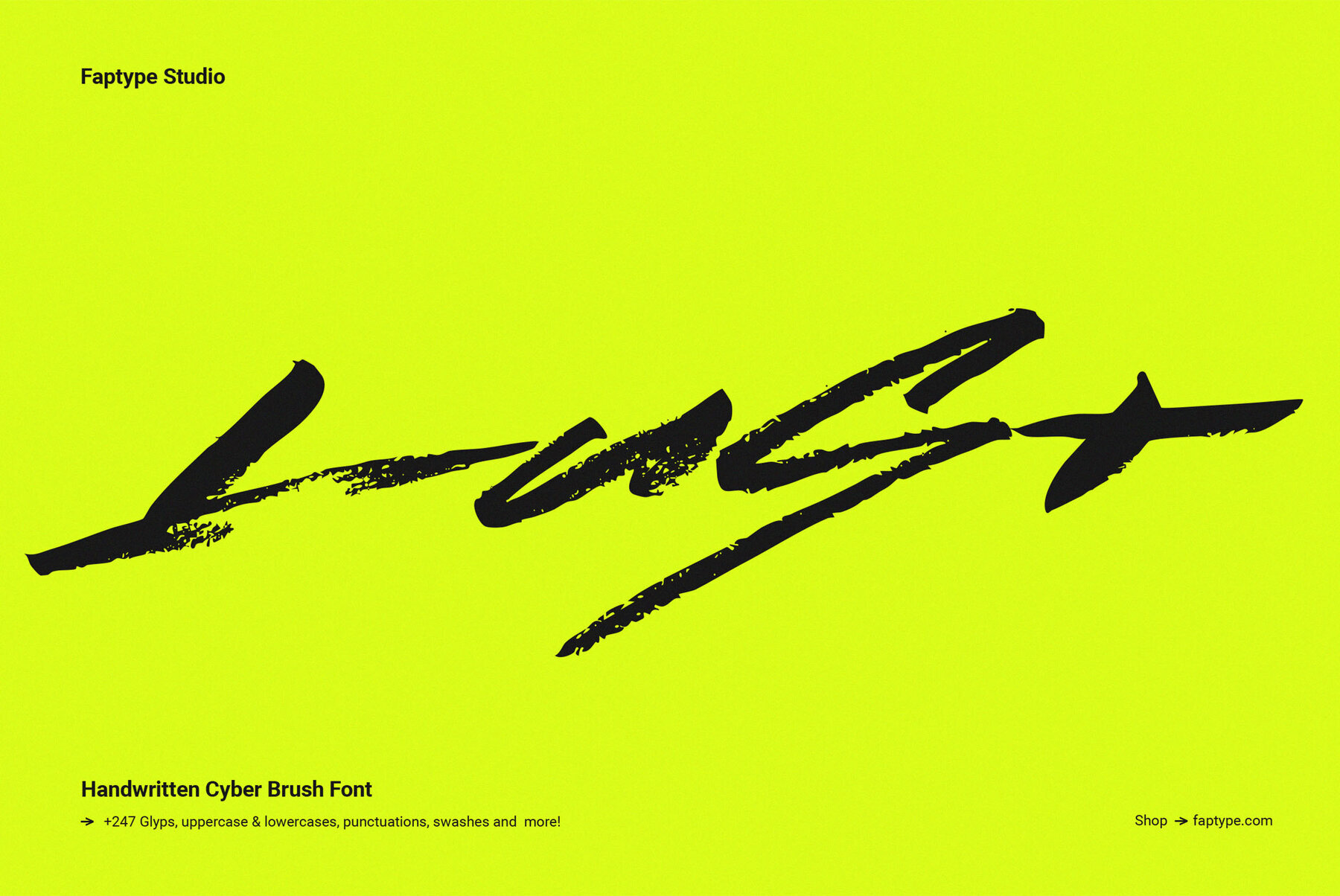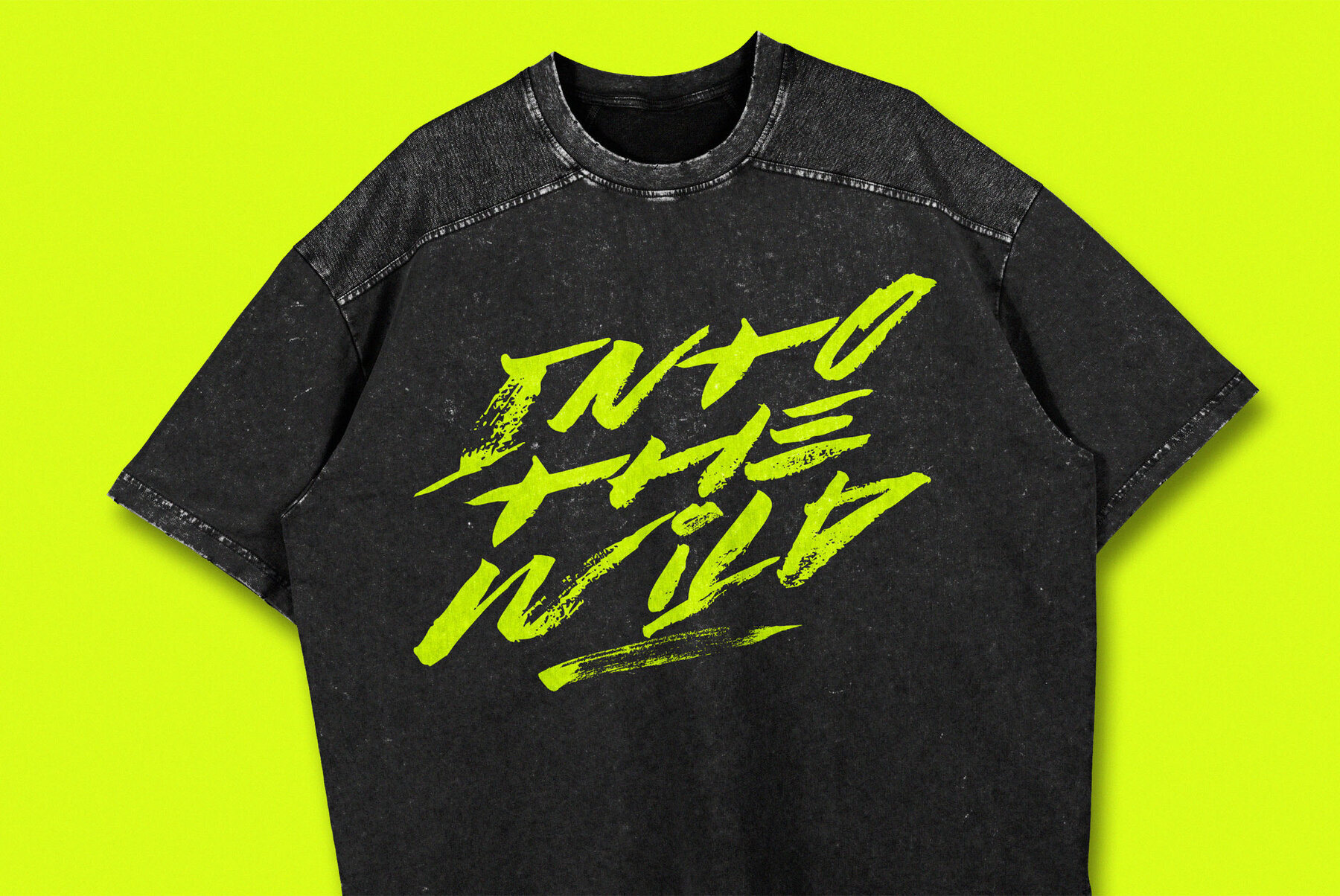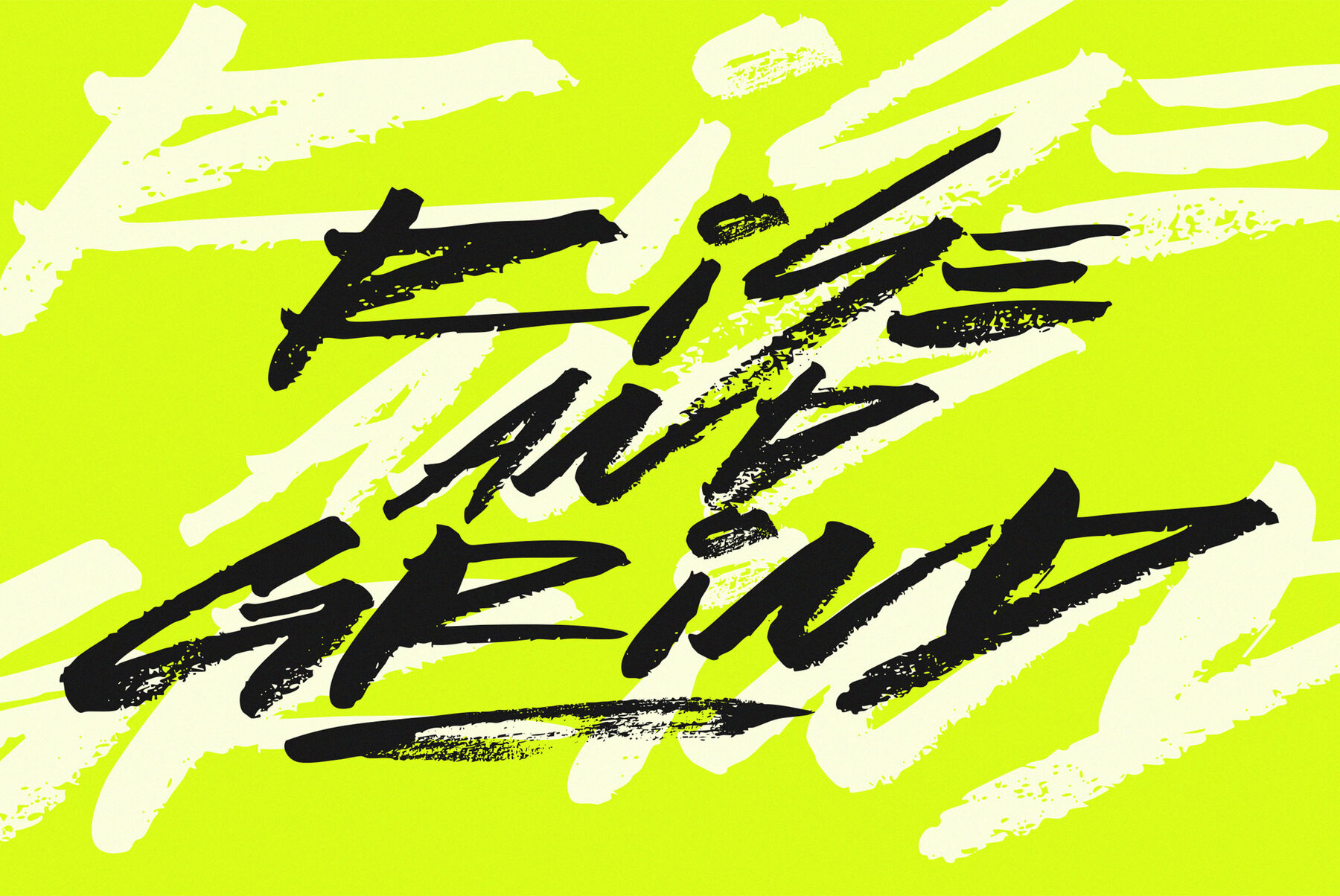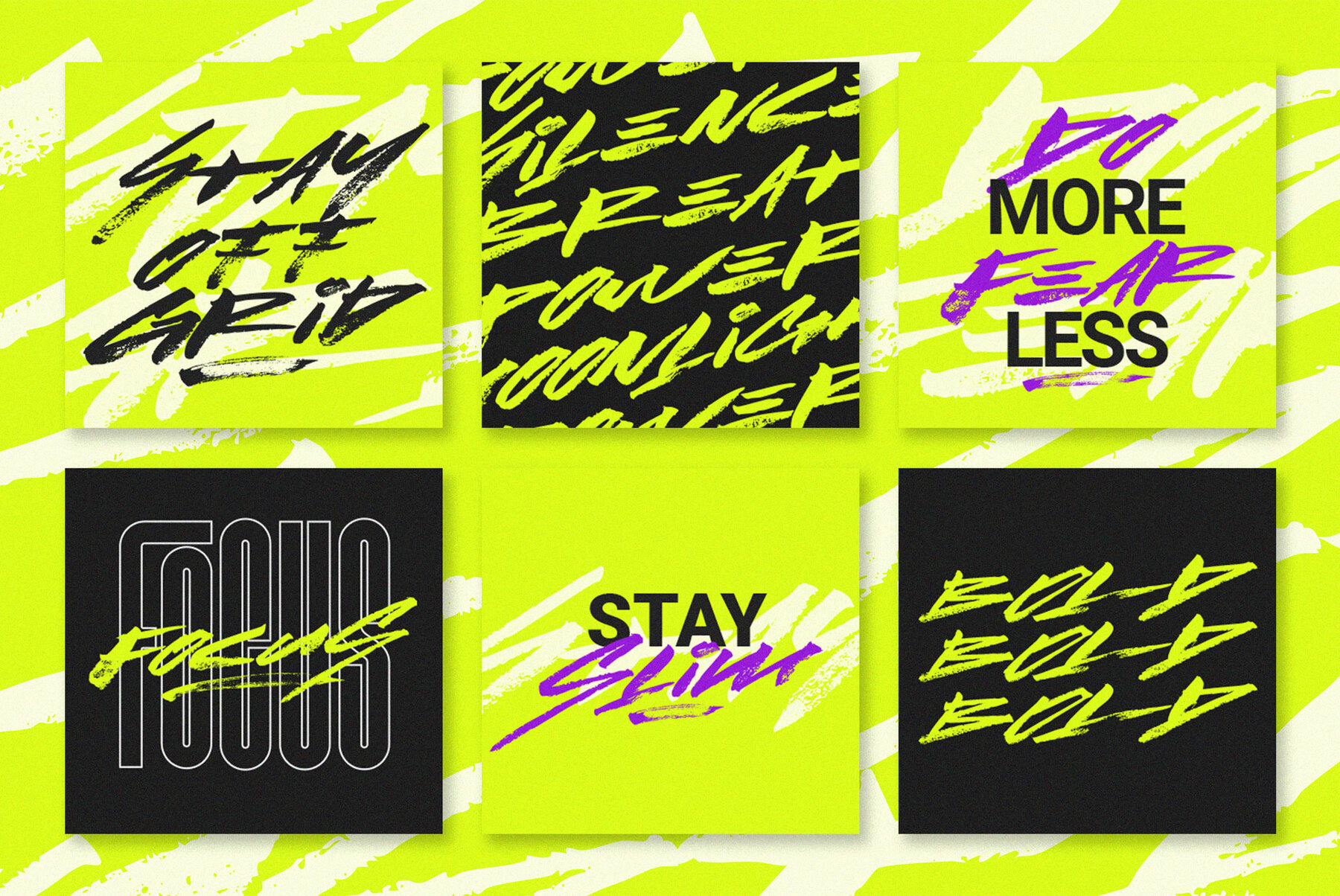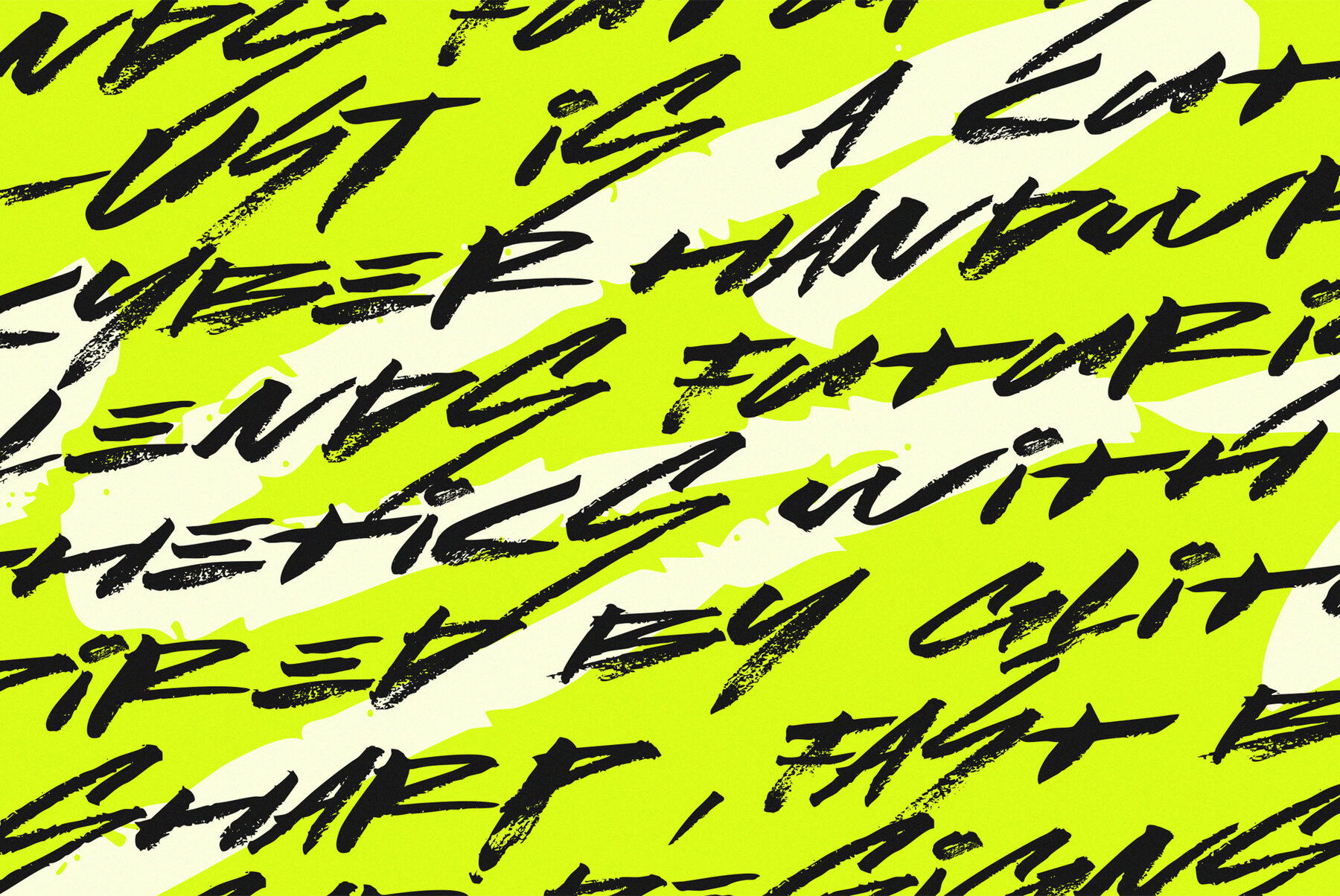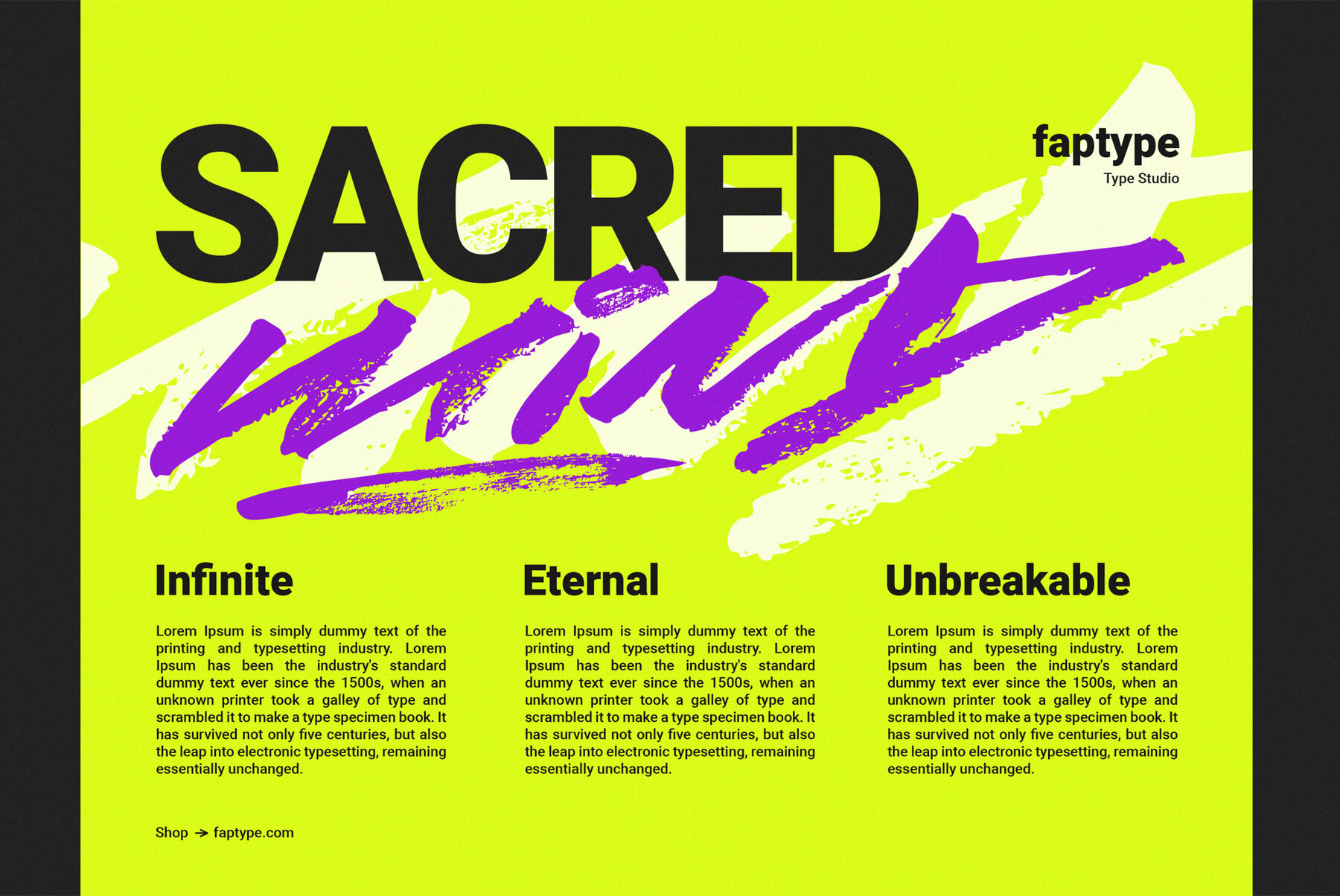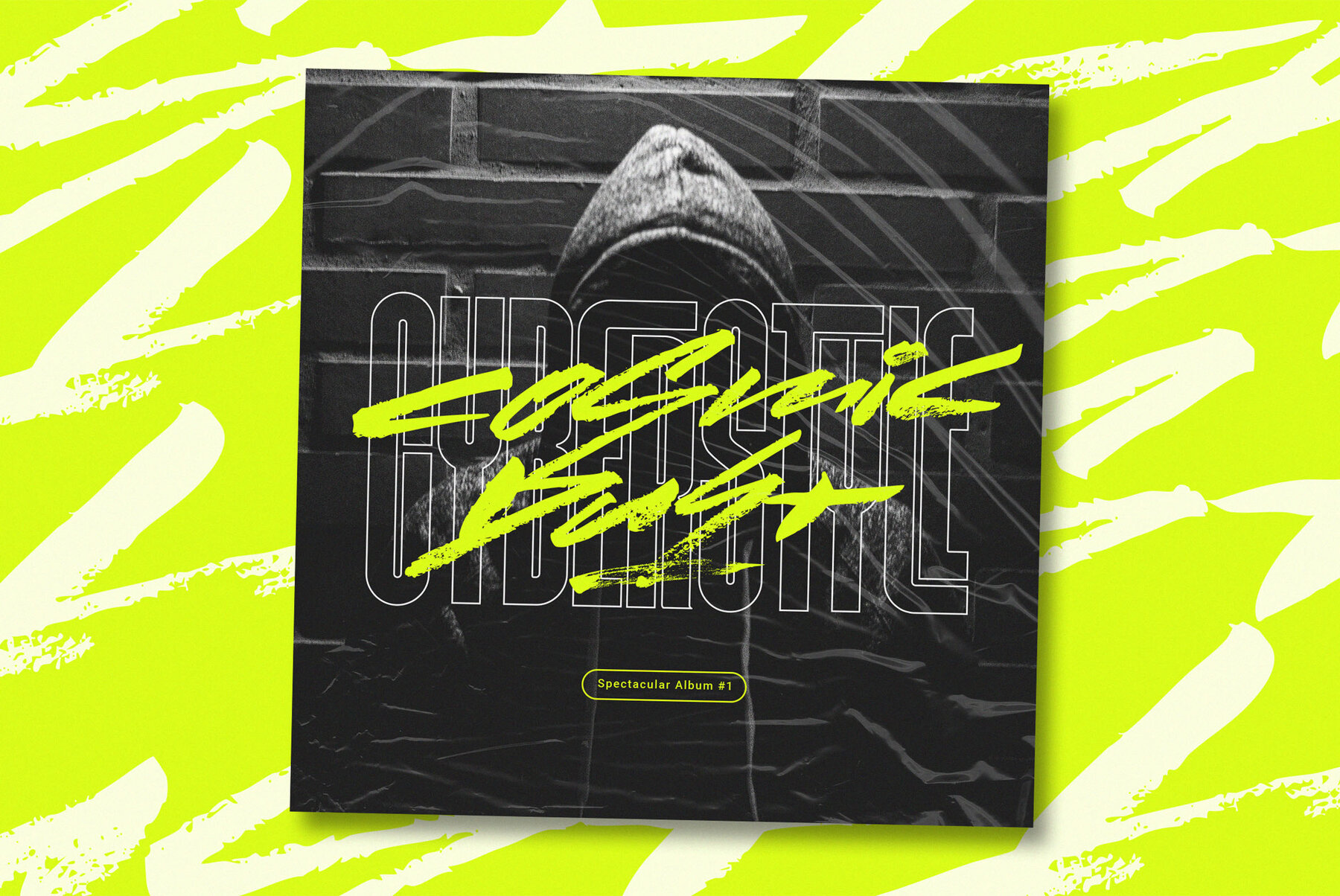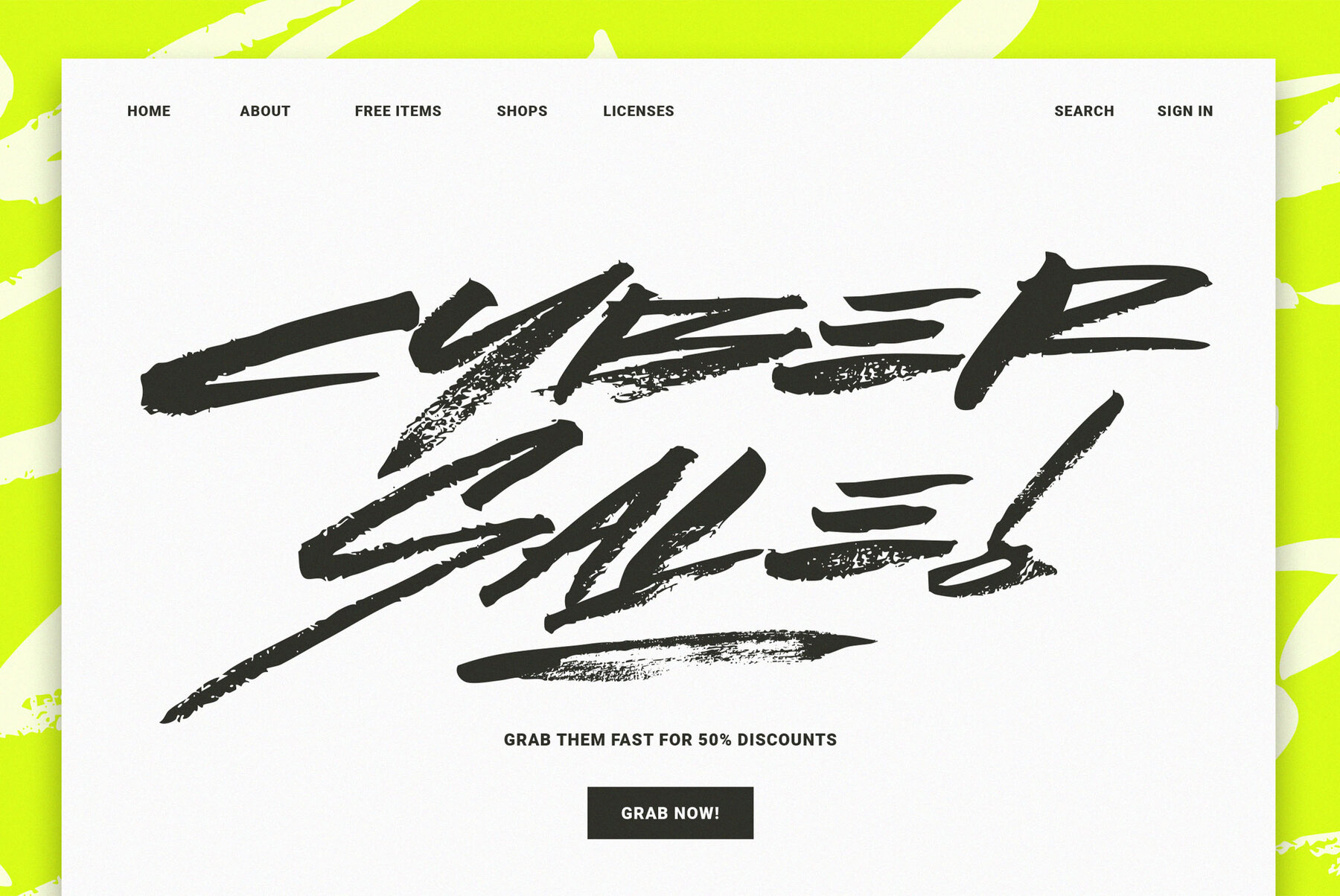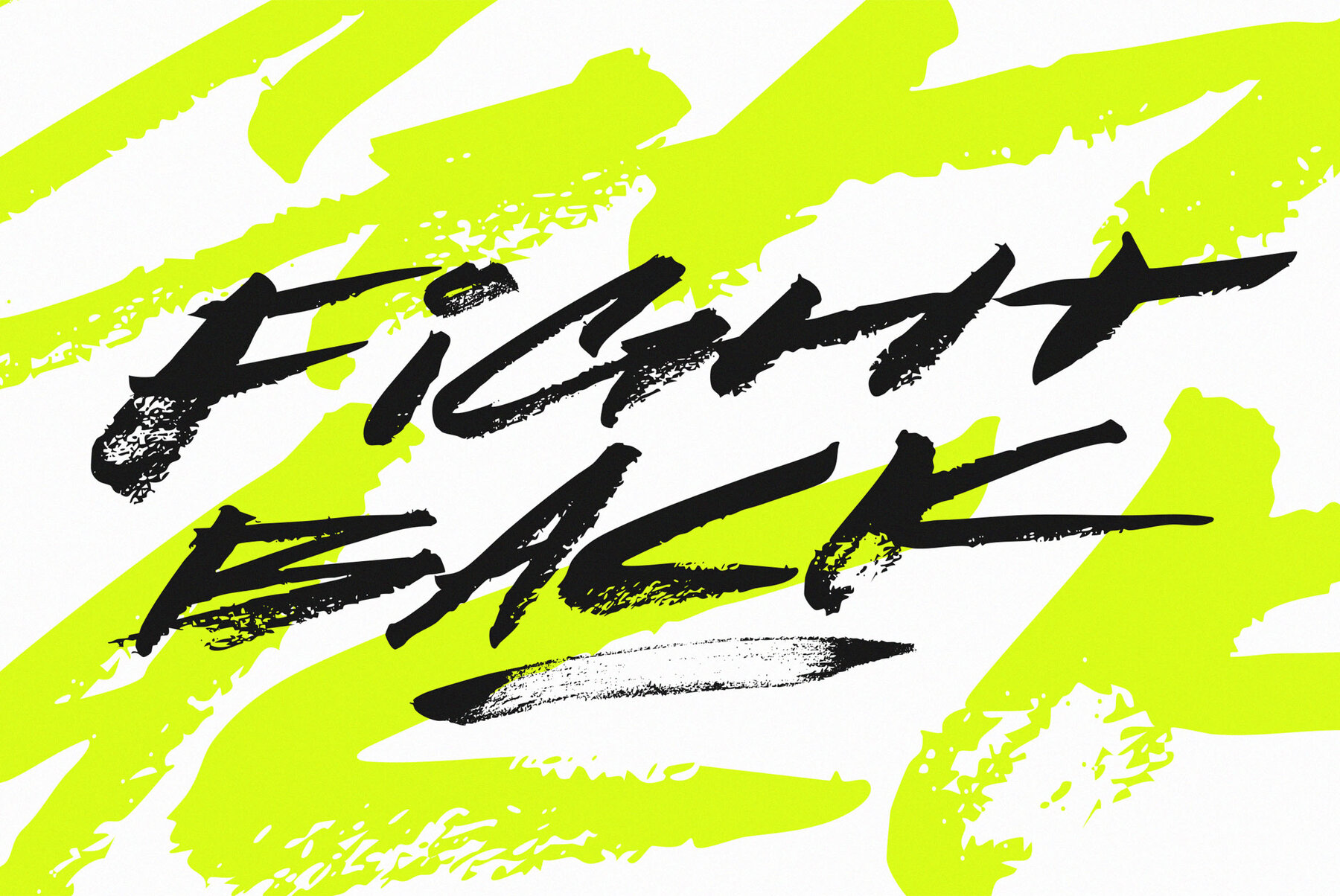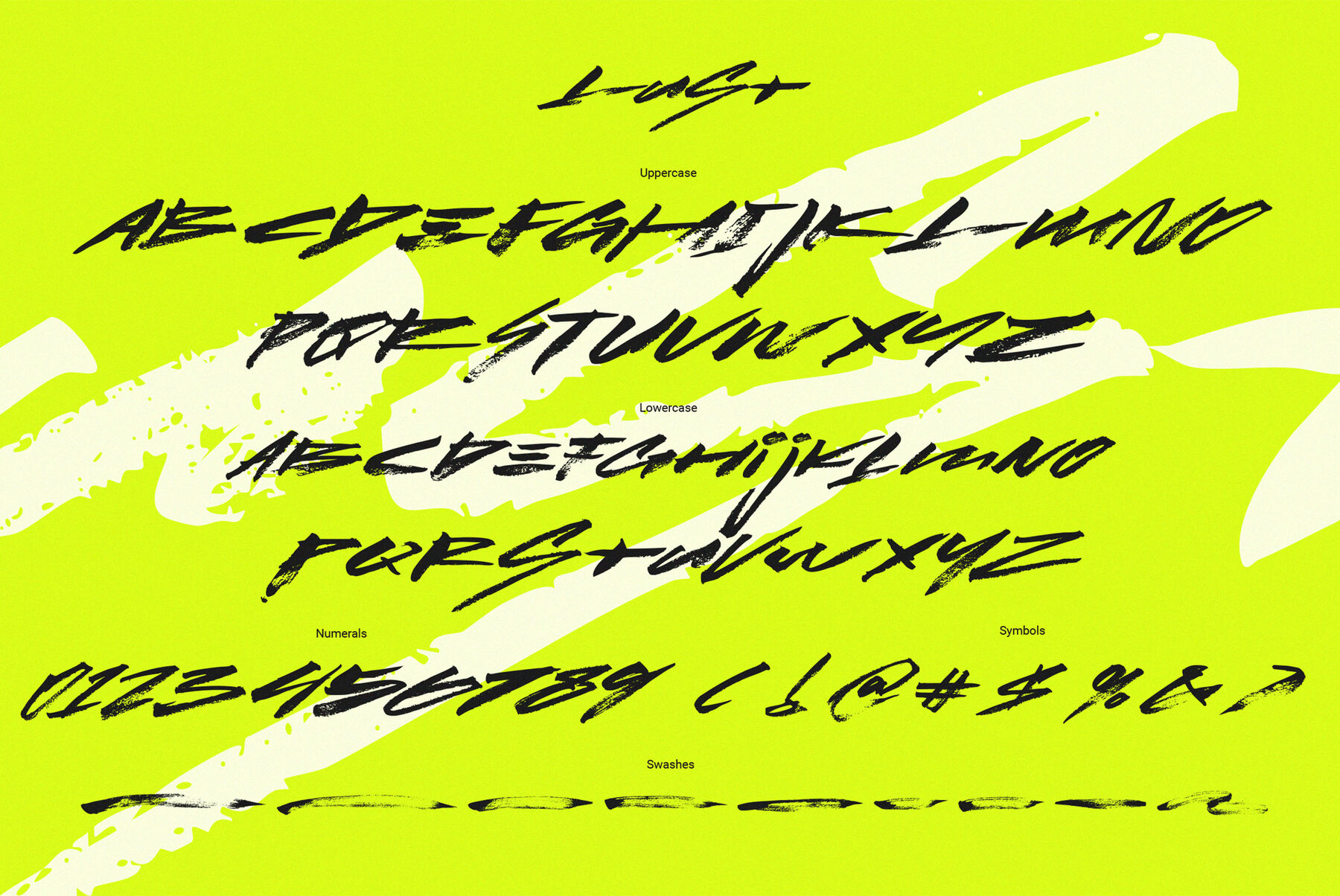
Lust Font
Lust Regular
In a landscape illuminated by neon glow, Lust emerges as an emotional brush font, capturing the raw essence of rebellion and expression. This cyber handwriting style transforms mere letters into a vivid display of defiance. Each stroke is a testament to the energy and chaos of a coder's world, embodying an undying belief in creativity amidst disorder. Lust embodies deliberate distortion as a form of authenticity. With its rough textures and dynamic presence, the font mirrors the adrenaline-fueled rush of a digital excursion, where every letter feels alive with urgency. Lust stands as a visual manifesto — a call to make your mark, indelibly human and strikingly alive, in a realm increasingly synthetic.Lust: Expressive Cyber Brush Font